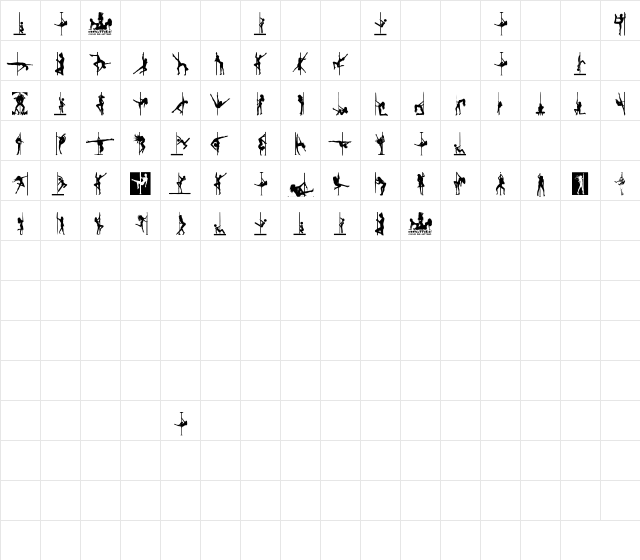
Pole Dance Regular
Design Context for Pole Dance
Pole Dance is a composed and adaptable typeface that performs quietly and consistently across a wide range of design contexts.